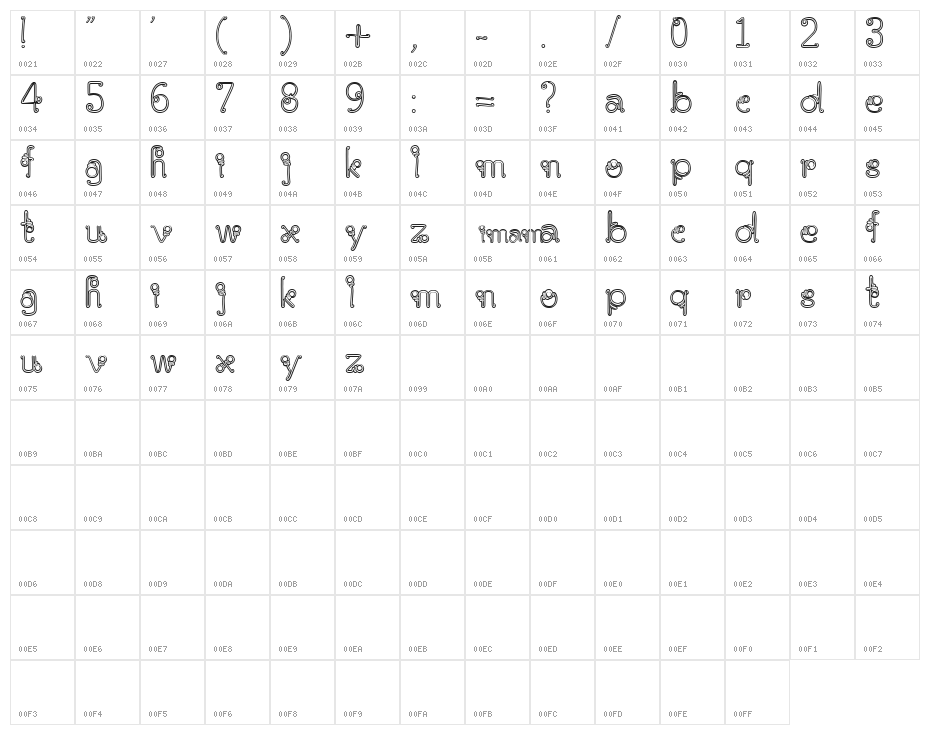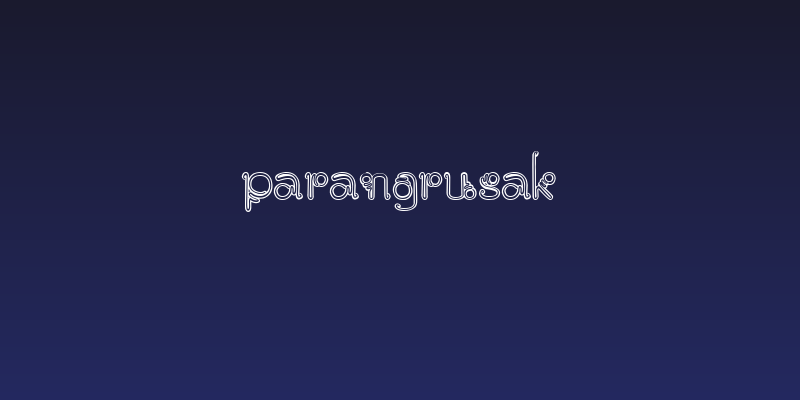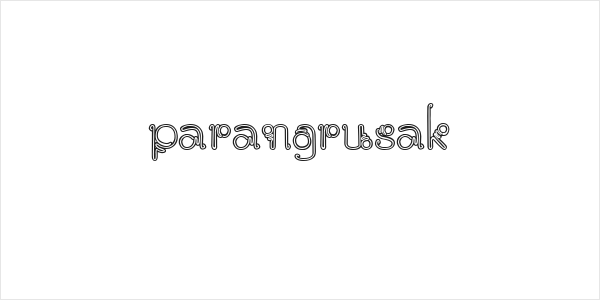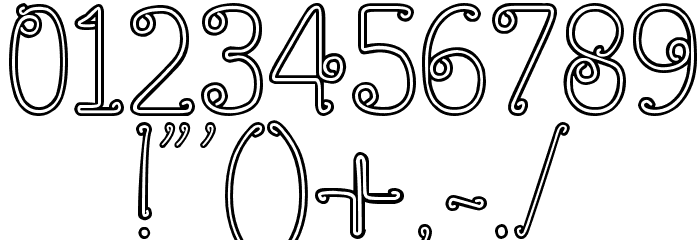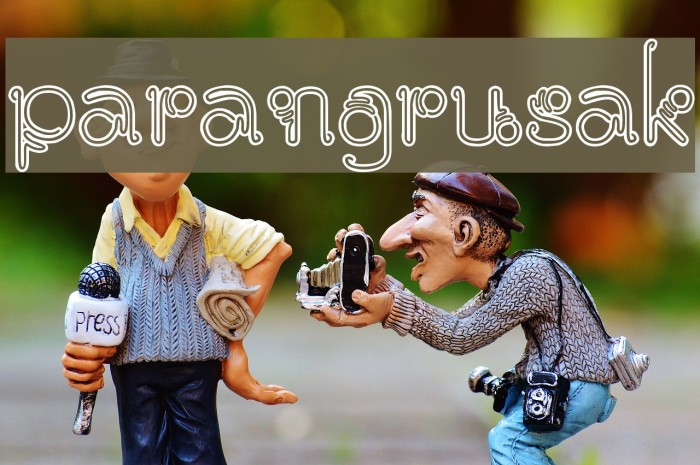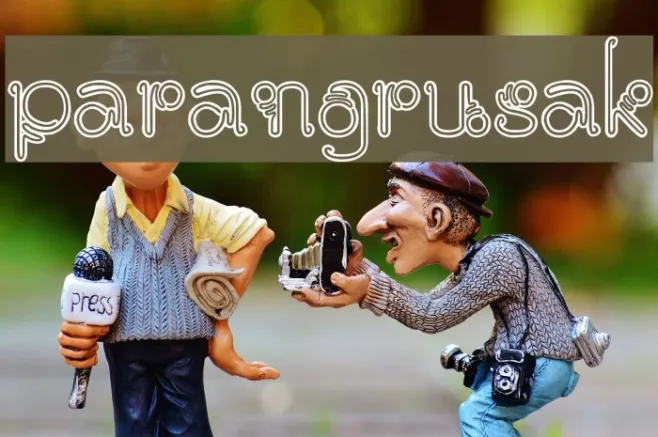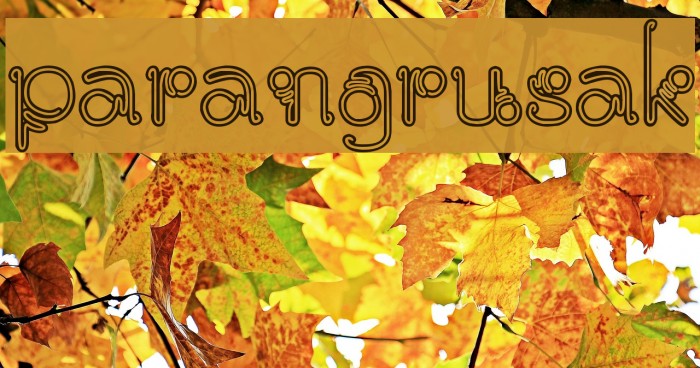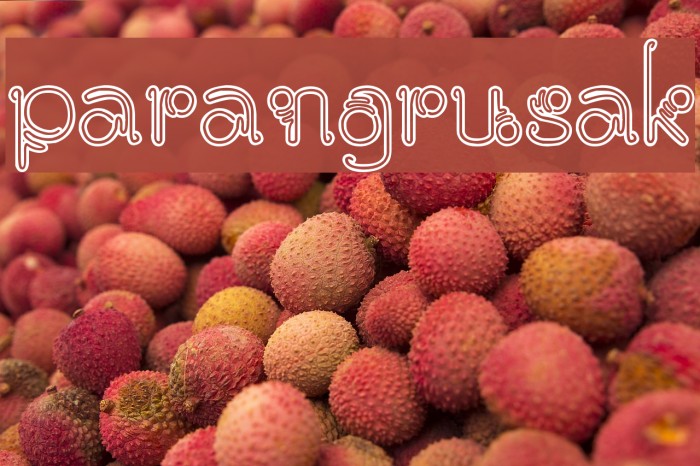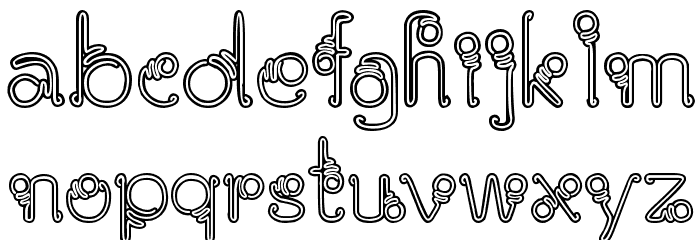
parangrusak Font
parangrusak Description
This font features a playful and whimsical design, characterized by its unique double-outline style. Each character is crafted with a continuous line that loops and swirls, creating a sense of movement and energy. The letters have a rounded, bulbous quality, with some characters incorporating spiral elements that add to the font's dynamic appearance. The numbers and special characters maintain this lively aesthetic, ensuring consistency across all glyphs. This font's distinct style makes it stand out, offering a fun and creative option for various design projects.
| Overall Style | Whimsical |